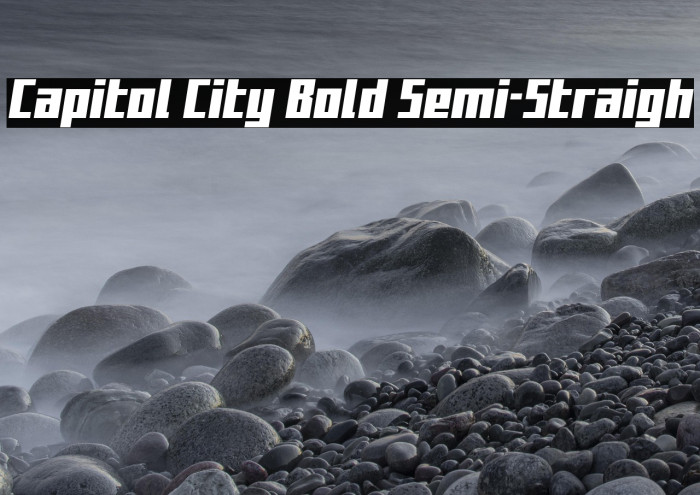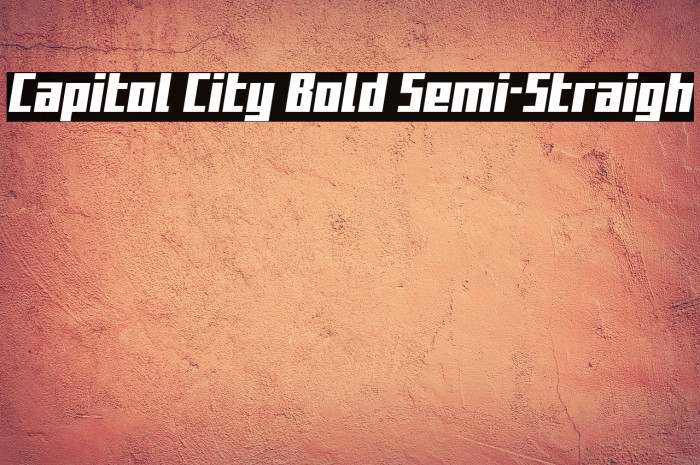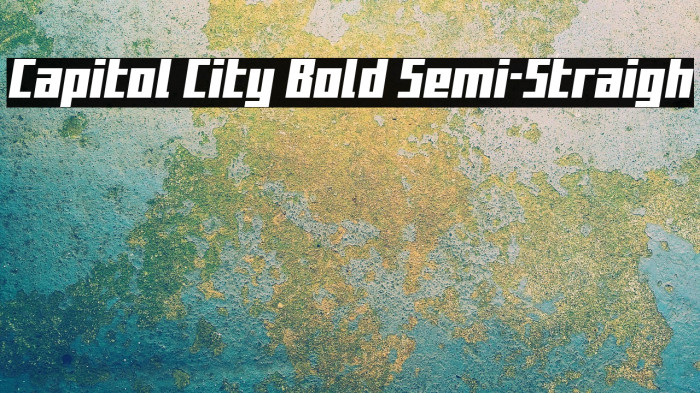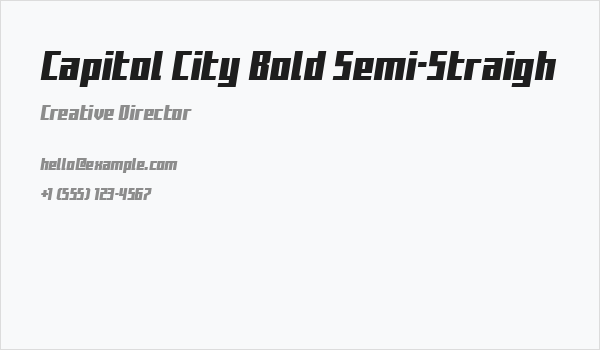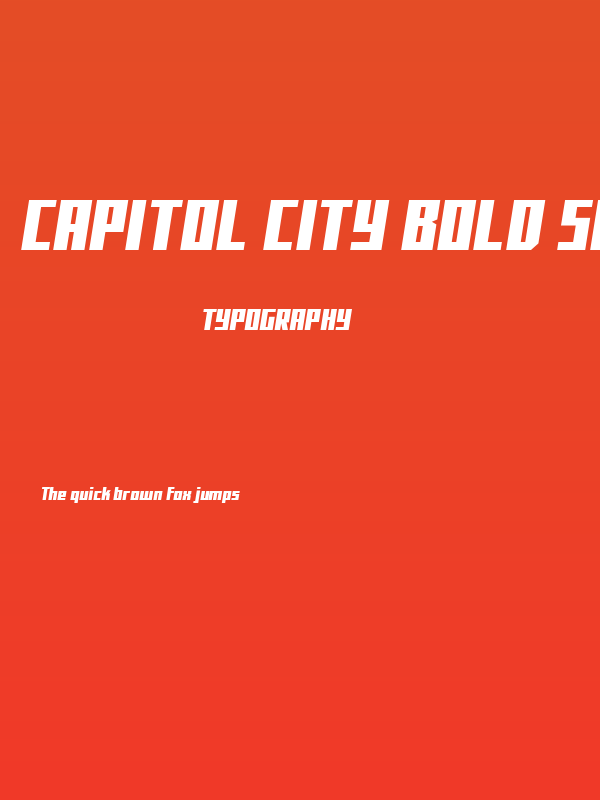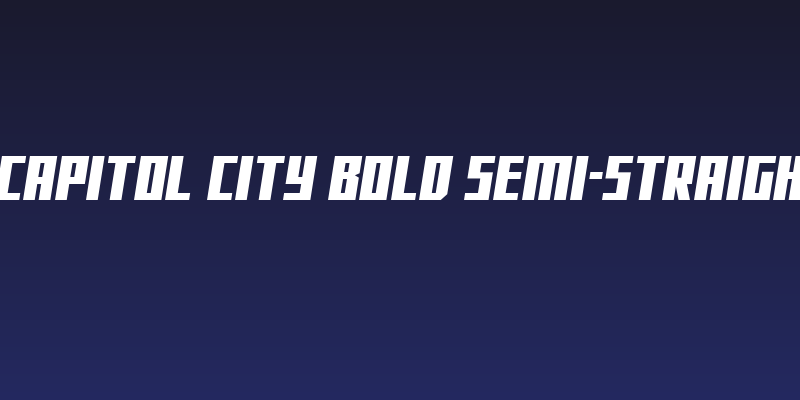
Capitol City Bold Semi-Straigh Font
Capitol City Bold Semi-Straigh Description
This font features a bold and dynamic style with a semi-straight, angular design. The characters are sharply defined, with a strong presence that commands attention. The uppercase and lowercase letters maintain a consistent weight, contributing to a cohesive look. The numerals and special characters are equally bold, ensuring readability and impact. The overall design is modern and assertive, making it suitable for projects that require a strong visual statement.